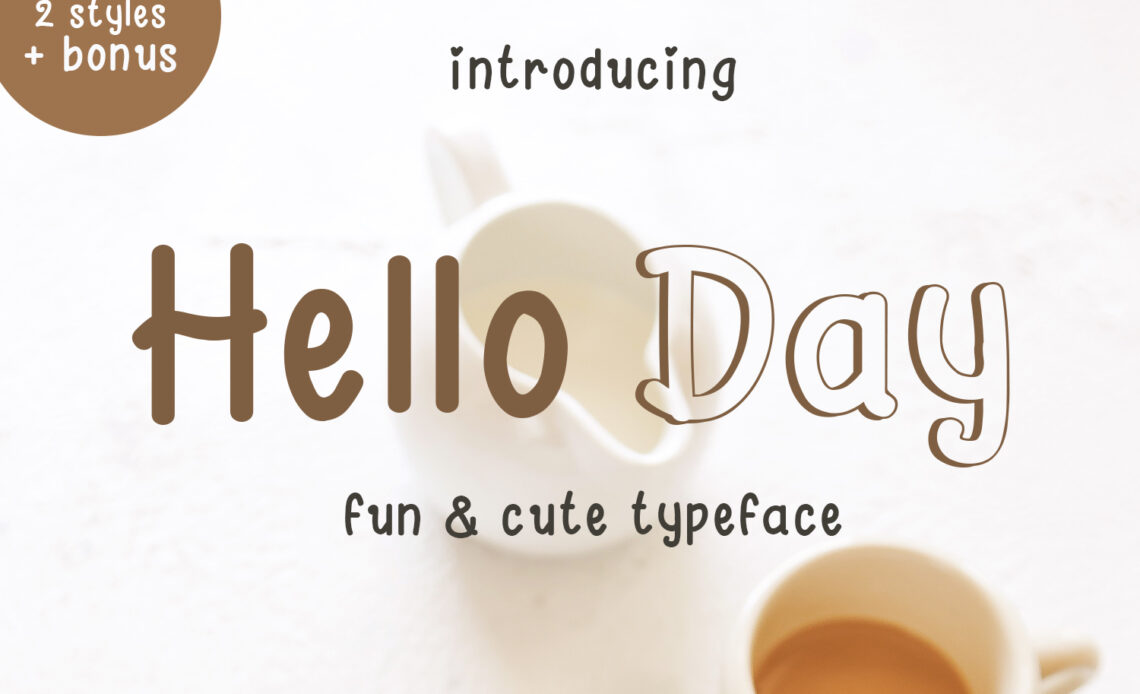
Dive into the world of typography and let Hello Day Font become your go-to font for captivating designs. This enchanting handwritten font, crafted with meticulous care by the talented josgandos, exudes a playful charm that will transform your projects into masterpieces. Its sans serif style adds a touch of modernity, while its two distinct styles provide endless possibilities for creative expression.
Hello Day Font is not merely a collection of letters; it's an invitation to unleash your imagination and create designs that dance with joy and whimsy. Layer the fonts to conjure up eye-catching headlines, design social media posts that pop, or craft logos that radiate warmth and personality.
But that's not all! Hello Day Font comes with a delightful set of dingbats, those playful little icons that add a dash of magic to your designs. Use them to embellish your projects with charming accents, create eye-catching borders, or simply inject a touch of fun into your typography.
Whether you're a seasoned designer or just starting your creative journey, Hello Day Font is the perfect companion for adding a touch of delight to any project. Its versatility knows no bounds, making it suitable for everything from cheerful invitations to whimsical packaging designs.
So, embrace the power of Hello Day Font and let your designs shine with a radiant glow of happiness and inspiration. From heartfelt greetings to playful social media posts, this font will elevate your projects to extraordinary heights, leaving a lasting impression on all who encounter it.